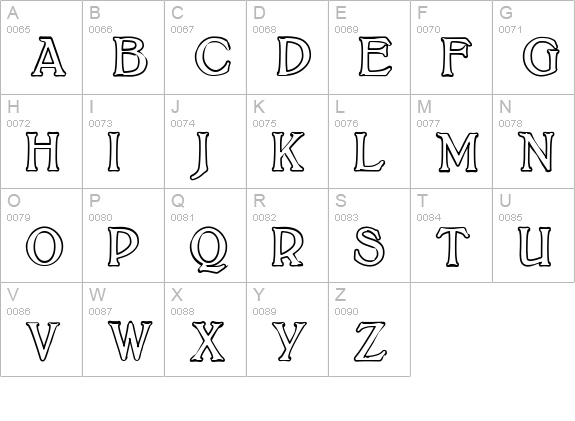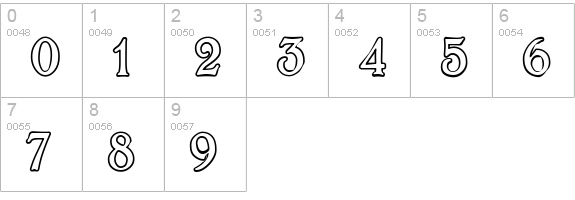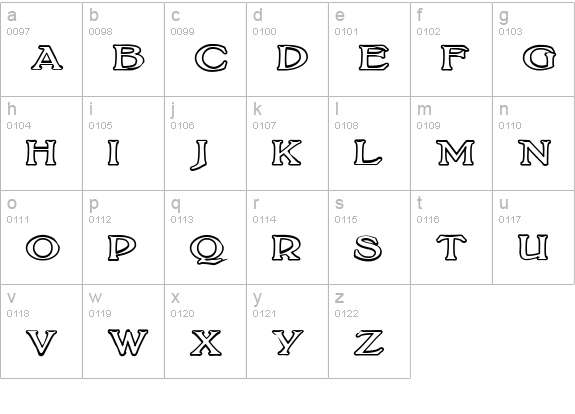
BoltonTitlingOutline Font Details
BoltonTitlingOutline is a stunning and elegant font that exudes sophistication and style. With its unique outline design, this font is perfect for adding a touch of modernity to any project. Its clean lines and bold appearance make it stand out and grab attention. Whether you are designing a poster, logo, or website, BoltonTitlingOutline is sure to make a statement. The best part about BoltonTitlingOutline font is that it is completely free to download at FontsMarket.com. You can easily access this beautiful font and use it in your projects without any cost. Don't miss out on the opportunity to enhance your designs with this versatile and eye-catching font. Download BoltonTitlingOutline today and elevate your creative work to the next level.